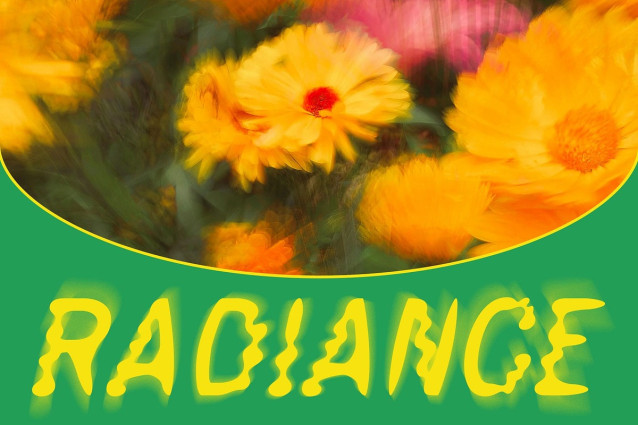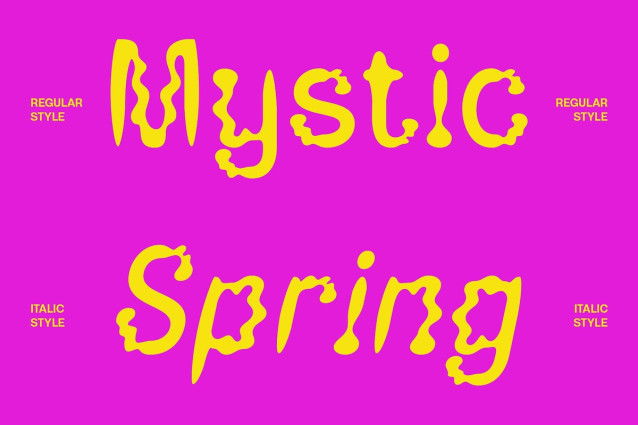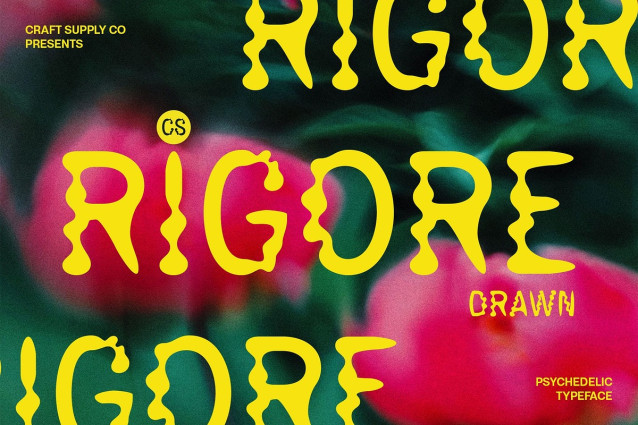
CS Rigore Drawn Font is a modern display font featuring psychedelic, trippy shapes combined with clean, contemporary lines. Its bold, imaginative forms create a funky, cheerful, and energetic look, perfect for designs that aim to captivate and entertain.
Handmade Drawn Texture for Expressive Character The subtle drawn effect adds a handcrafted texture to each letter, giving them unique artistic flair. This manual detailing transforms the psychedelic shapes into lively, expressive, and visually engaging typography.
Funky, Playful, and Attention-Grabbing This vibrant and energetic font balances playful, unconventional shapes with modern clarity. Its trippy curves and organic forms ensure a distinctive style, making every design dynamic, bold, and full of personality.
Ideal for Creative and High-Impact Projects Perfect for posters, branding, music designs, or other creative projects, this imaginative and whimsical font adds energy, individuality, and visual excitement. Its combination of psychedelic imagination, clean lines, and handcrafted texture makes it ideal for projects that want to stand out.
Elevate Designs with Artistic Vibrancy With bold proportions, trippy letterforms, and subtle handmade detailing, this contemporary and stylish font delivers a typeface that radiates fun, energy, and creativity. It’s a versatile choice for designers seeking a playful, attention-grabbing, and artistically expressive font.